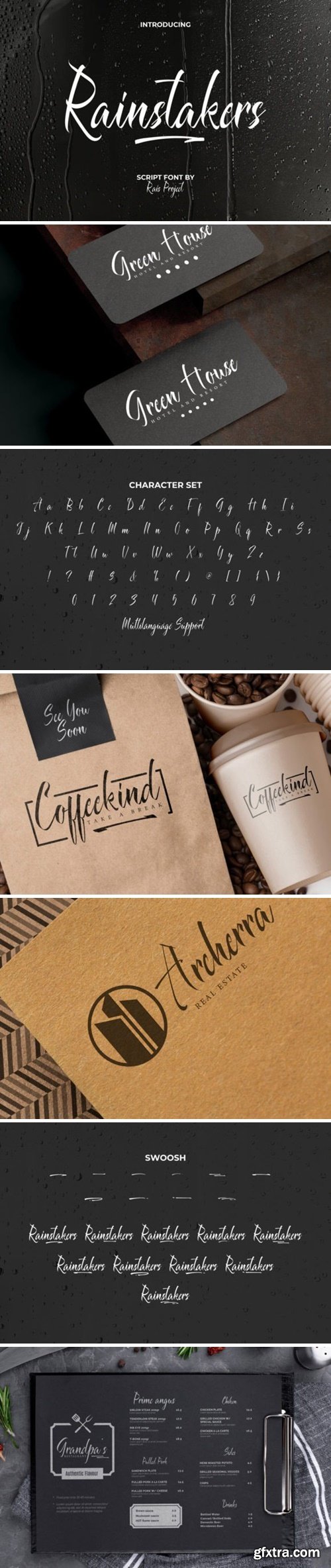
雨拾者字体
Rainstakers Font is a stylish modern script font with calligraphy style. Inspired by the raindrops that fall not too heavily, creating a beautiful view that soothes the eyes. This font has a lovely appearance making it suitable for any industry, such as café, digital, fashion, hotel and resort, photography, real estate, restaurant, printing, publishing, and more!